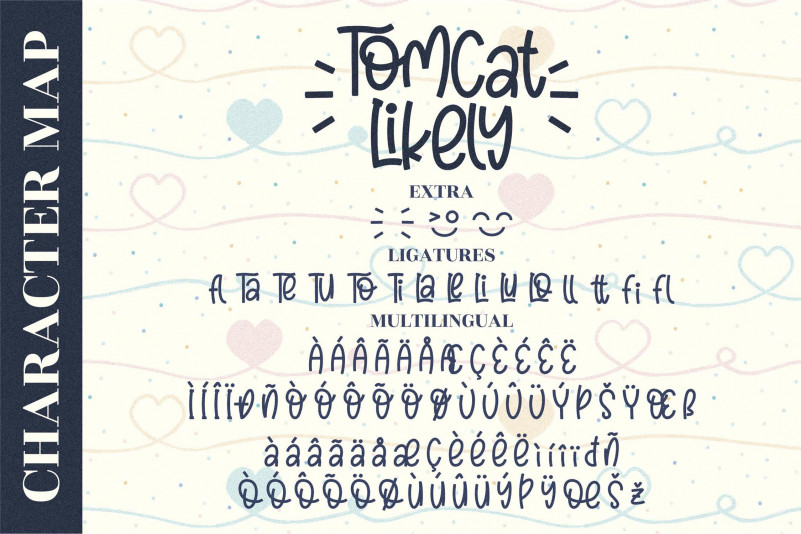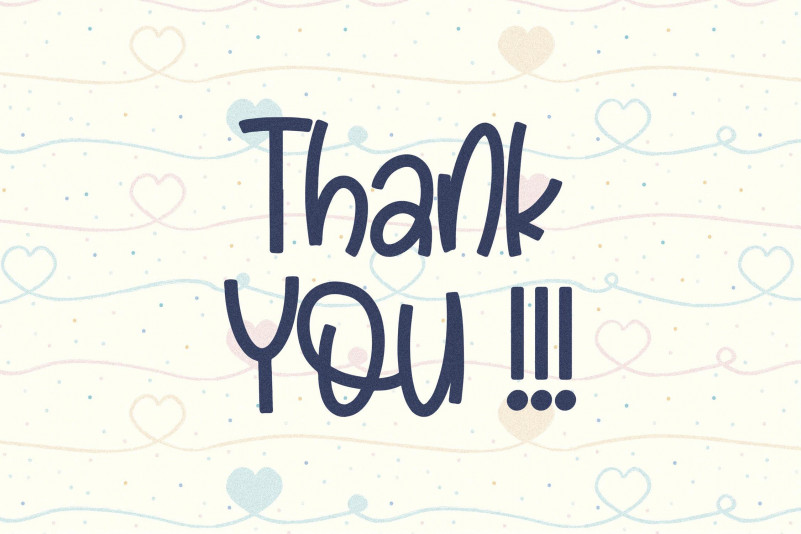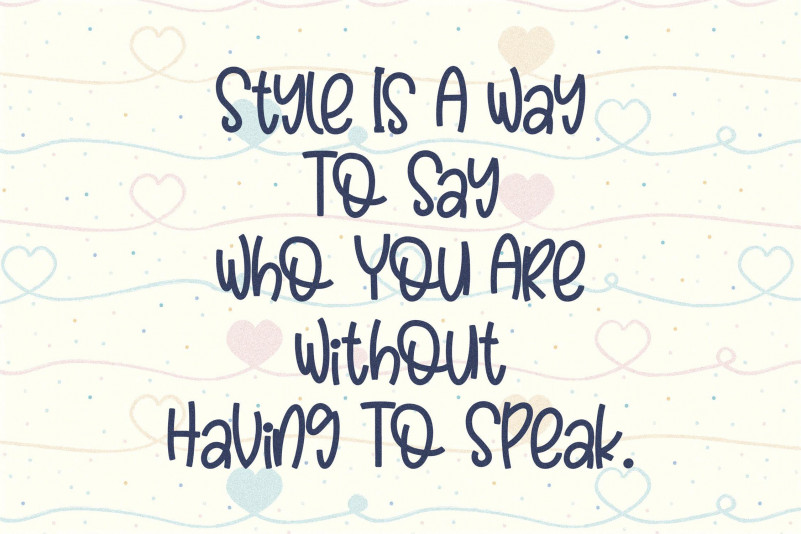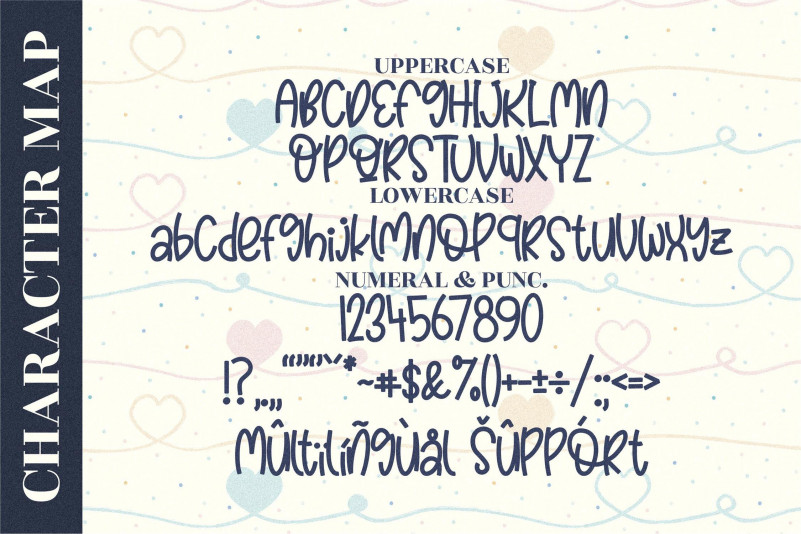
Tomcat Likely Font
Tomcat Likely Script Font
This is a sweet, cool and quirky handwritten font. No matter the topic, this font will be an incredibly asset to your fonts’ library, as it has the potential to elevate any creation.